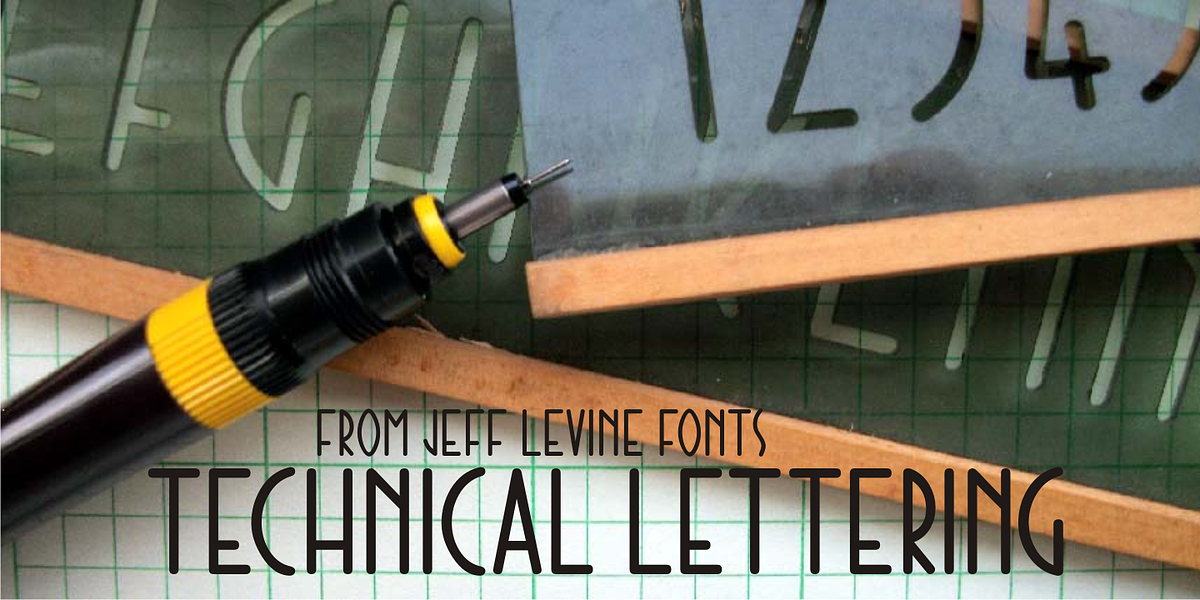
Technical Lettering JNL
A set of vintage lettering templates manufactured by Albert Nestler in Germany yielded this Art-Deco flavored typeface with many unusual letter forms.
Lettering templates were used for decades by architects and draftsmen prior to other advanced lettering methods to label renderings, blueprints and layouts.
Although they are similar to stencils in the fact that the lettering is traced, templates are designed to produce solid lettering with the use of a technical pen.